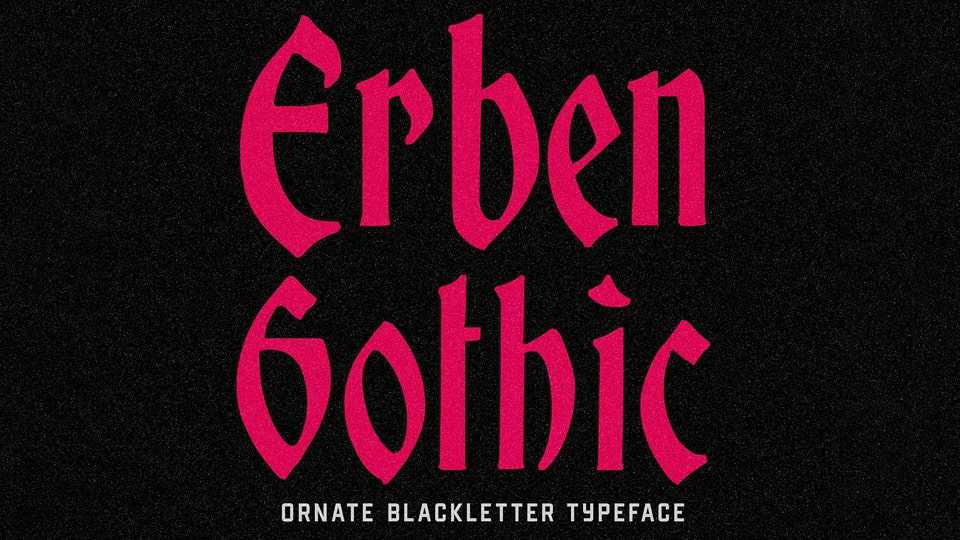
Download Erben Gothic font, a bold blackletter typeface inspired by dense and intricate textura lettering. It features sharp, angular strokes and fractured letterforms that give the font a strong and expressive character.